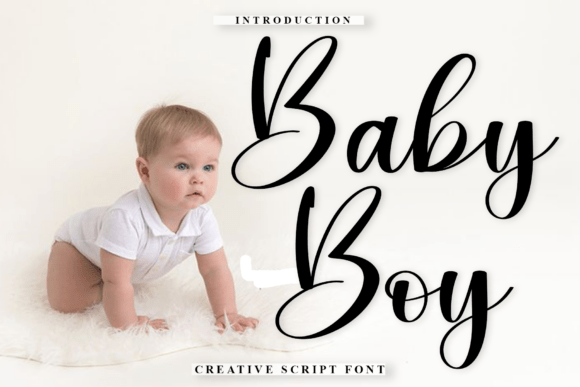
Getting Creative with the Perfect Font
Have you ever sat down at your desk, staring at a blank page or screen, trying to come up with the perfect idea for a project? It’s that moment when the perfect font can make all the difference, setting the tone for the entire design.
That’s where the Baby Boy Font comes in – a casual and creative font that exudes warmth and friendliness. Designed for personal projects, invitations, and social media graphics, Baby Boy Font is perfect for adding a fun and unique touch to any design. Its round, playful strokes create a relaxed and approachable feel that’s sure to engage your audience. Whether you’re a seasoned designer or just starting out, Baby Boy Font is a valuable addition to your toolkit.
Baby Boy Font Key Features
- Font Family: Baby Boy is a script font designed to resemble handwritten text.
- Character Count: The font contains a wide range of characters, including uppercase and lowercase letters, numbers, and punctuation marks.
- Unique Characteristics: The font’s unique, handwritten feel makes it perfect for creating a personal and emotional connection with the viewer.
Baby Boy Font Review
I’ve had the chance to work with the Baby Boy Font, and I must say it’s a unique and playful choice. Here are my thoughts:
- The font’s playful, cursive style is perfect for projects that require a fun and energetic vibe.
- The letterforms are well-designed, with nice rounded edges and smooth connections.
- The font is highly customizable, with a wide range of weight and style options.
- The font may not be the best choice for projects that require a more formal or professional tone.
- The cursive style can be difficult to read at small font sizes, making it less suitable for body text.
- The font’s uniqueness can also be a double-edged sword – while it’s perfect for some projects, it may not be the best fit for others.
Overall, I think the Baby Boy Font is a great choice for projects that require a fun and playful vibe. While it may not be the best choice for every project, it’s definitely worth considering for those that need a unique and eye-catching font.
The Baby Boy Font is ideal for:
- Baby shower invitations and decorations.
- Children’s party invitations and materials.
- Personalized baby gifts and accessories.